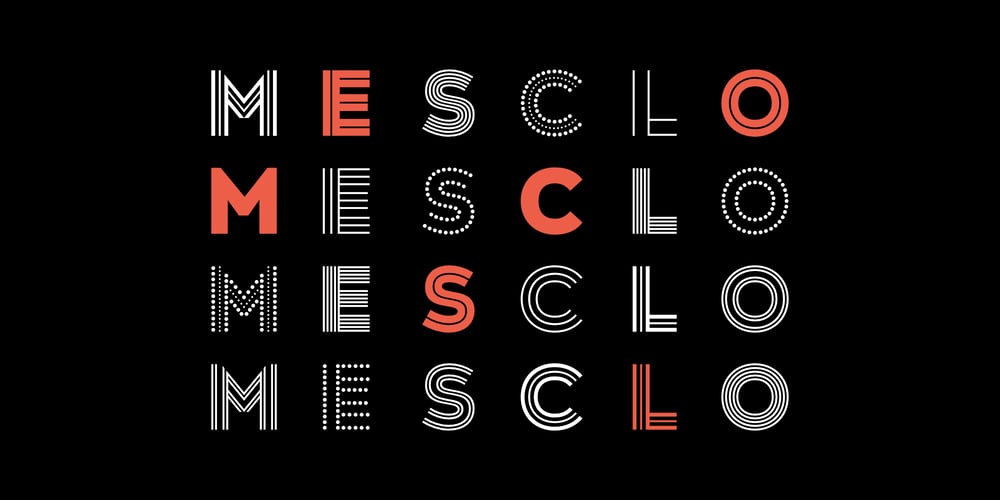
Mesclo Font Family was designed by Dino dos Santos, Pedro Leal and published by Monotype. Mesclo contains 22 styles and family package options. Mesclo is our personal take on the geometric typefaces genre. With mono-linear appearance, humanistic elements and subtle hints of Art Deco, Mesclo is a timeless typeface with dramatic oblique terminals and a welcoming, friendly roundness. The outstanding dynamic rhythm and legibility of the text contrasts with the inflexible geometry of the unusual complementary caps-only typefaces, specially developed to fulfil and enrich this type family.